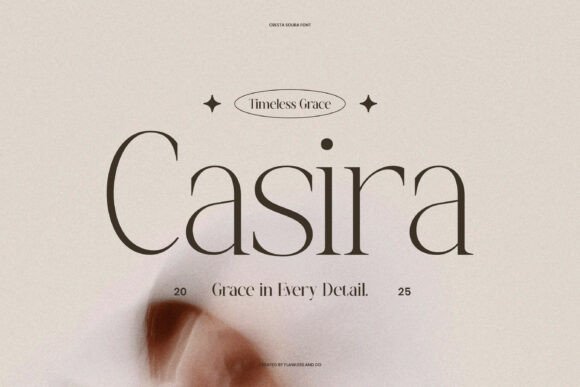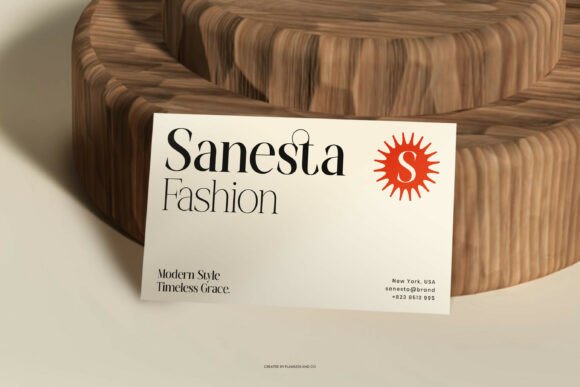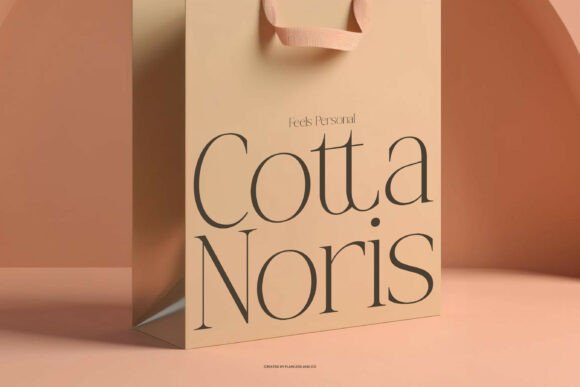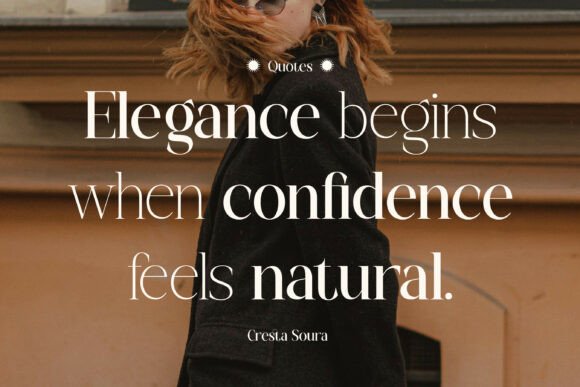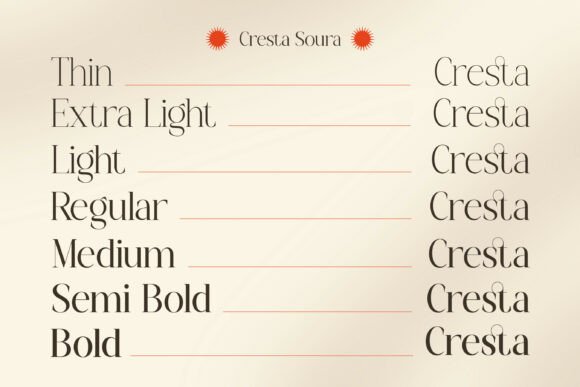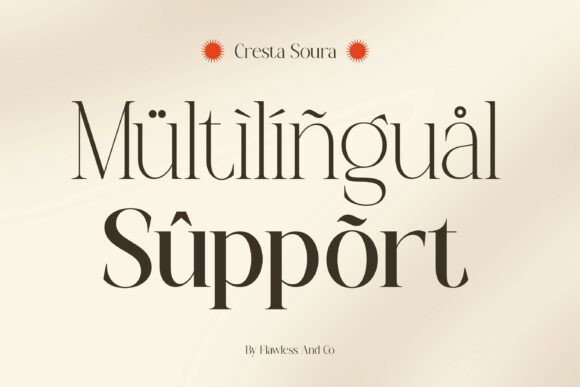
Introduction to Cresta Soura Font
Cresta Soura is a modern serif family font designed with refined elegance and confident character.
Featuring smooth curves, sharp contrasts, and graceful letterforms, Cresta Soura delivers a sophisticated look that feels contemporary yet timeless Its carefully crafted shapes make it versatile for both bold headlines and elegant body text.
Key Features of Cresta Soura Font